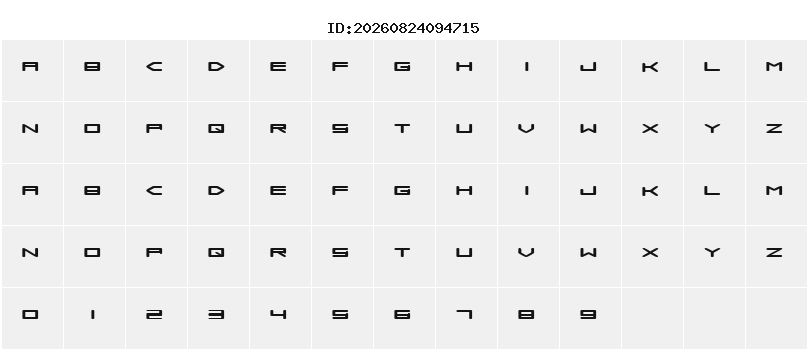
• Font Name: Samba is Dead
About Samba is Dead.ttf
Samba is Dead.ttf is a modern, elegant sans-serif font designed for ultimate readability and visual harmony. Perfect for branding, headlines, web design, and print materials.